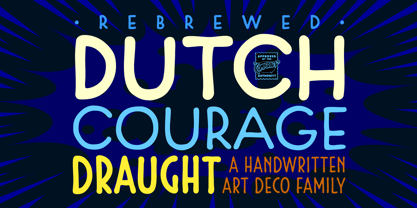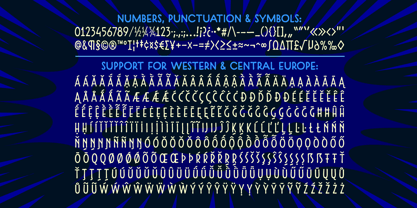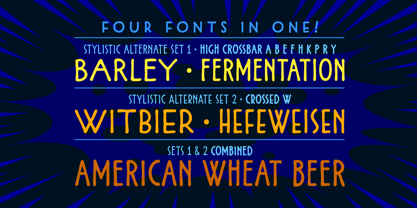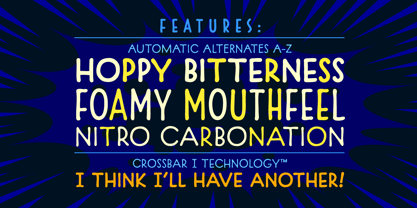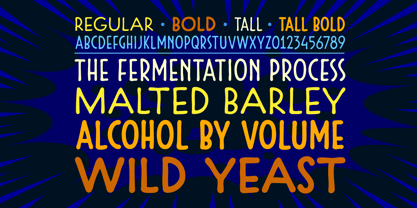
Dutch Courage Draught
by Comicraft
The Dutch Courage Draught Font Family was designed by Richard Starkings, John Roshell and published by Comicraft. Dutch Courage Draught contains 4 styles and family package options.
Citizens of Gotham rejoice! Comicraft’s Dutch Masters have remastered the fonts originally created to lend a crisp, clean, Art Deco look to DC's BATMAN & ROBIN ADVENTURES. Dutch Courage Draught — a tall, elegant font drawn in a classically 'hand rendered' style — is now its own family of four weights: Regular, Bold, Tall & Tall Bold. Each includes automatic alternates, Comicraft’s pioneering Crossbar I Technology™ and two sets of Stylistic Alternates -- it's like four fonts in one!